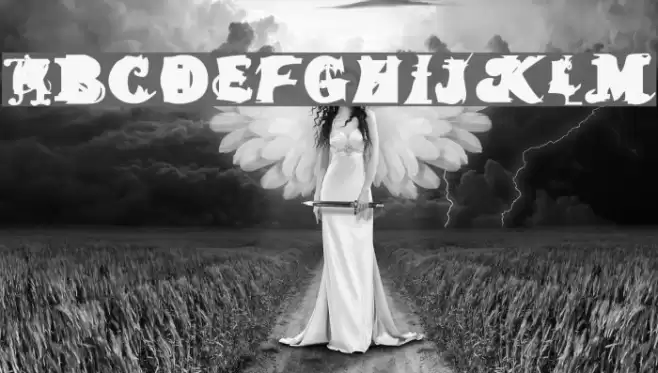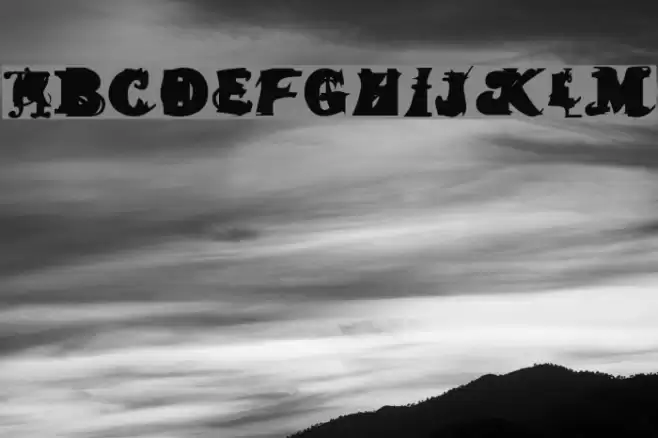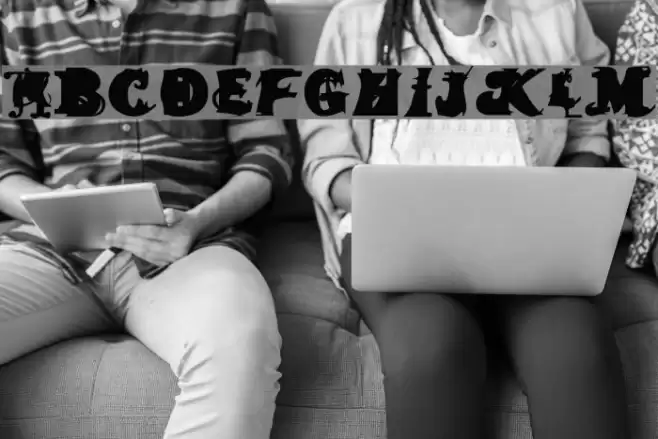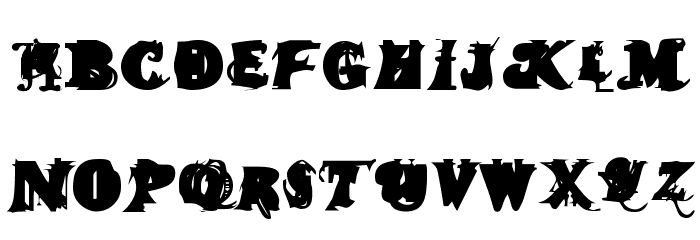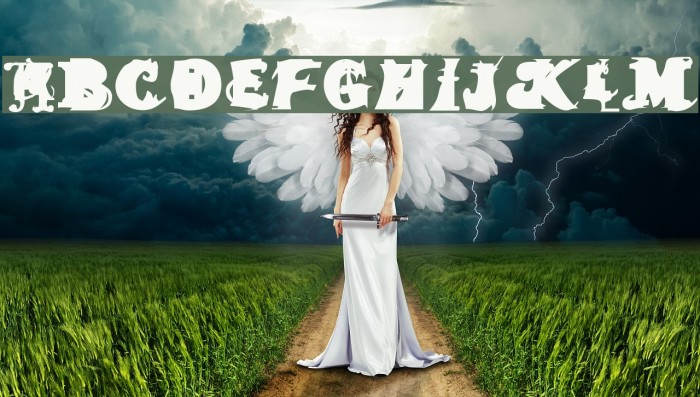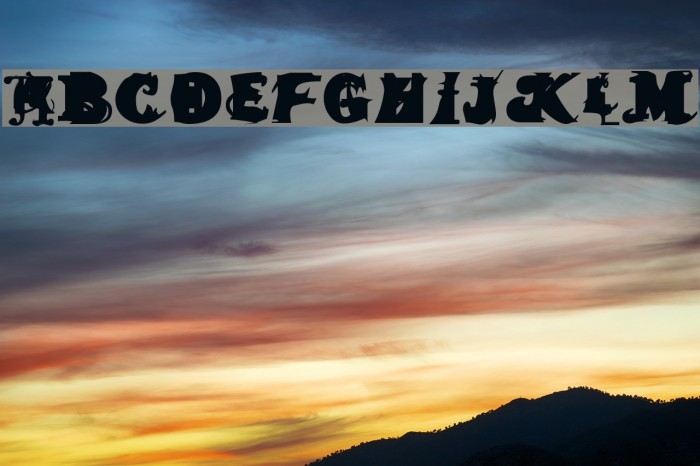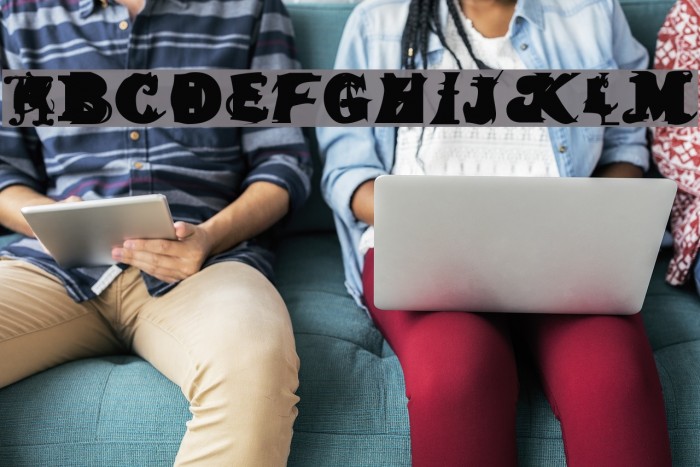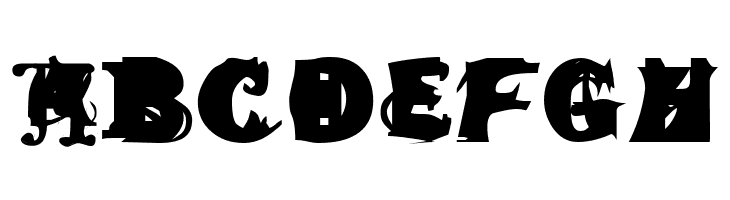
Again and Again Font
Again and Again Description
This font features a highly decorative and intricate design, characterized by bold, dramatic strokes and elaborate embellishments. Each letter is uniquely styled with swirling, organic shapes that give it a dynamic and somewhat chaotic appearance. The overall aesthetic is reminiscent of gothic or fantasy themes, making it stand out with its artistic flair. The uppercase and lowercase letters maintain a consistent style, with the uppercase being more pronounced in their decorative elements. The numerals and special characters follow the same ornate pattern, ensuring a cohesive look across all characters.
A bold, decorative font with intricate, swirling designs and a gothic flair from Uncategorized fonts.
- Proposed Projects: Ideal for fantasy-themed projects, book covers, posters, and any design requiring a dramatic and artistic touch.